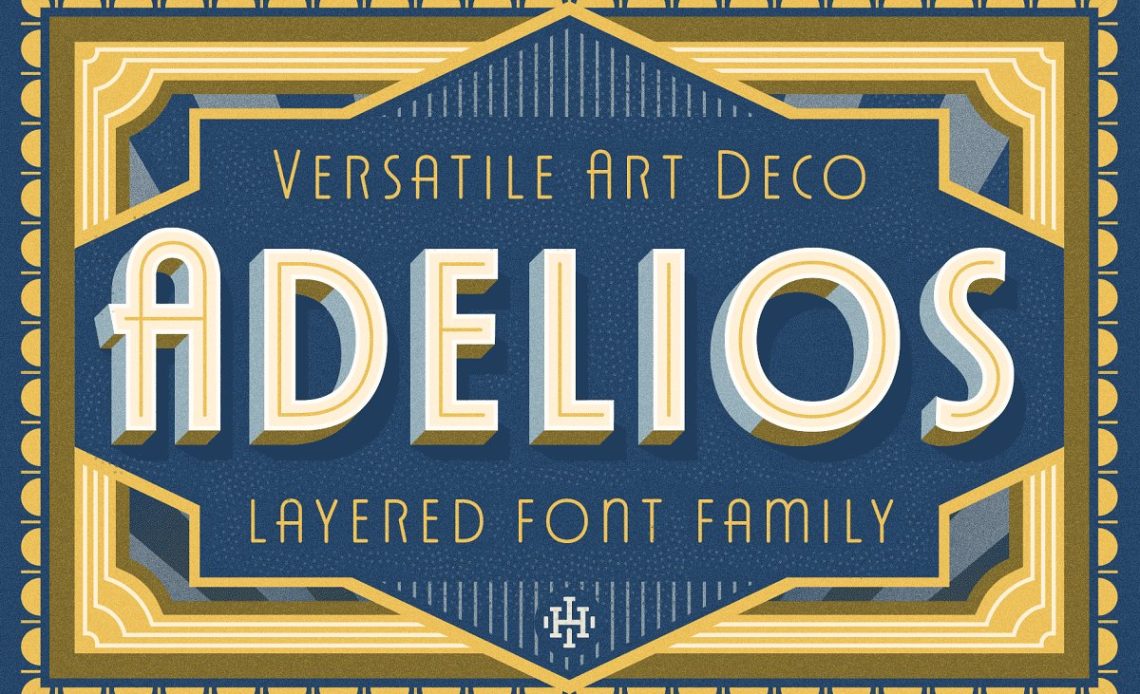
Looking for the perfect font to elevate your project? Look no further than Adelios Layered Font, the best font for movie titles and more! Created by renowned typeface designer Ilham Herry, this font family is perfect for anyone looking to add a touch of vintage flair to their designs.
Adelios is a display typeface that features eight unique styles, all of which can be layered to create a truly unique look. With options for Outline, Extrude, Line, Cast, HighLight, and Bottom layering, the possibilities are endless. Whether you're creating traveling posters, movie theater signage, or art deco-inspired designs, Adelios has everything you need to make your project stand out.
The inspiration for Adelios comes from a variety of sources, including vintage travel posters and art deco buildings. With its geometric and decorative shapes, this font is sure to capture the attention of anyone who sees it. And with its versatility, it's perfect for use in a variety of different settings, from headlines and posters to signage, menu boards, and greeting cards.